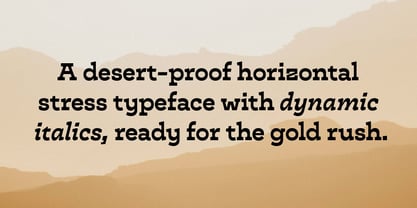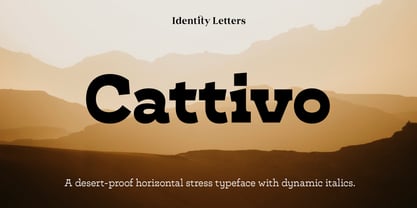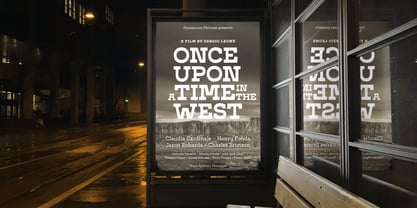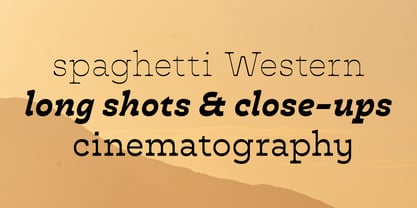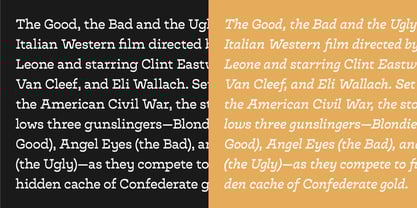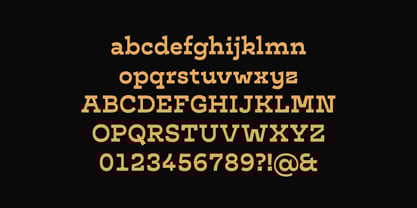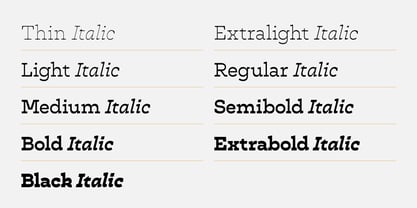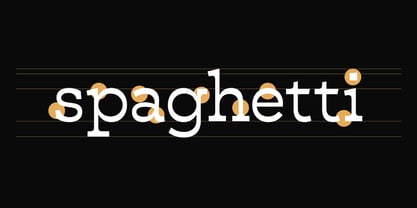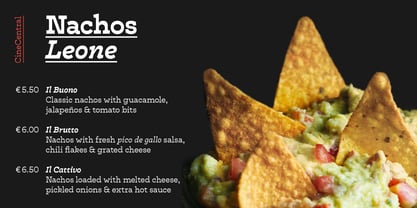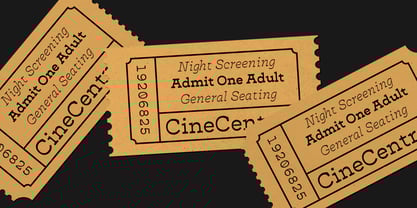
Cattivo
The Cattivo Font Family was designed by Moritz Kleinsorge and published by Identity Letters. Cattivo contains 18 styles and family package options. More about this family
Cattivo is a frontier-proof slab-serif typeface that feels at home in your favorite Spaghetti Western. With horizontal stress, sleek curves, and contemporary proportions, it is a tongue-in-cheek reinterpretation of the Italienne genre. Reduced contrast and advanced typographic features make it suitable for both display use and short segments of body text. Independently drawn italics—dynamic and inspired by handwriting—add to the versatility. The full family provides a set almost 700 glyphs in 9 weights plus 9 italics. It is optimized for print and digital use. Book this ride on the steam train. Start exploring uncharted territories. With Cattivo, you too will be ready for the next gold rush.